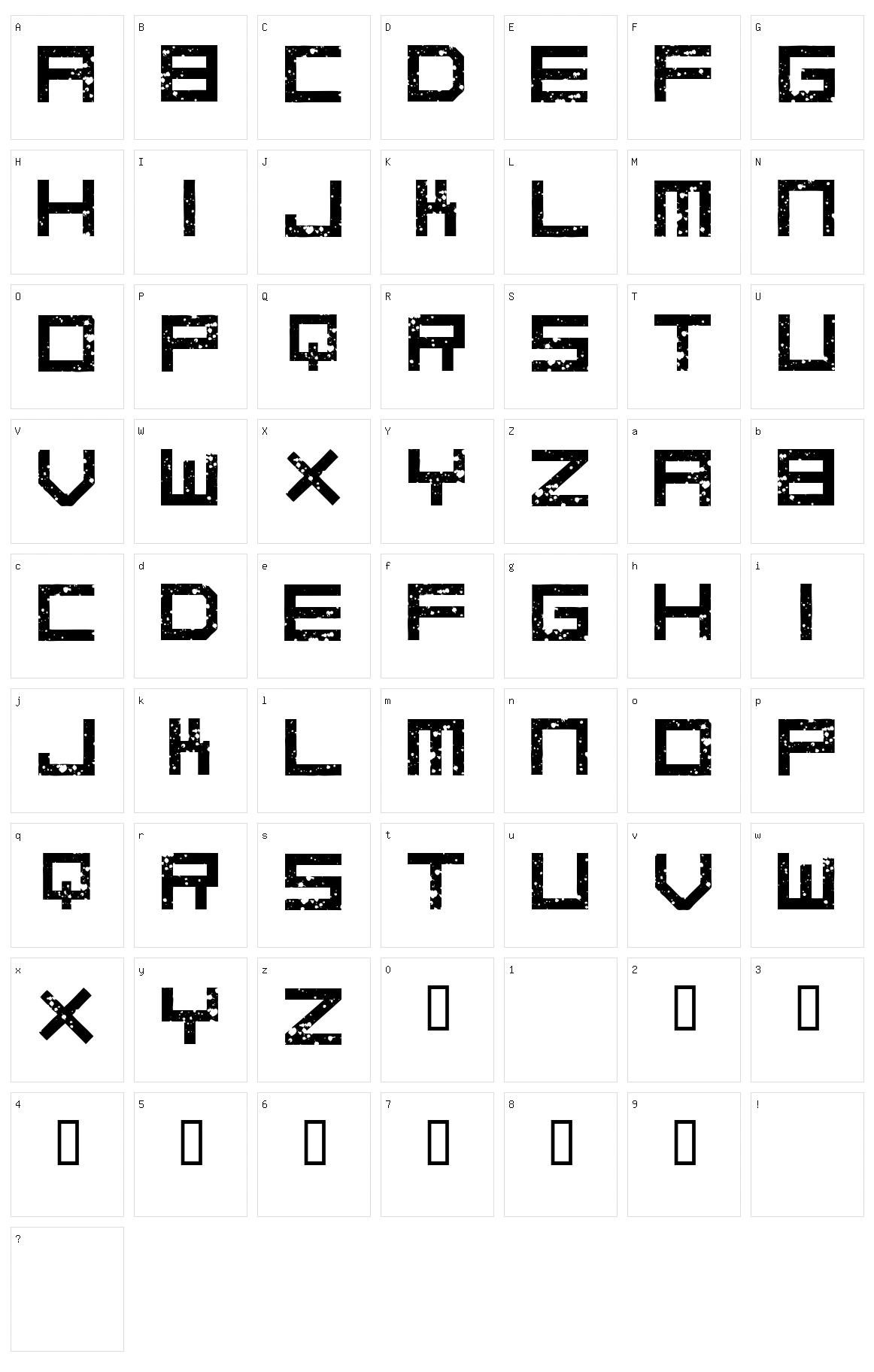
The free font Digital Anarchy is carefully designed by Font Monger, showcasing a thoughtful balance of creativity and usability and falls under the Square font style. When you download the ZIP file, it contains only 198.31 KB of font files, making it lightweight and quick to download. Please review the license details below to understand permitted usage and distribution rights. If license information is not available, we recommend using this font for personal projects only or contacting the author directly for commercial usage permissions.